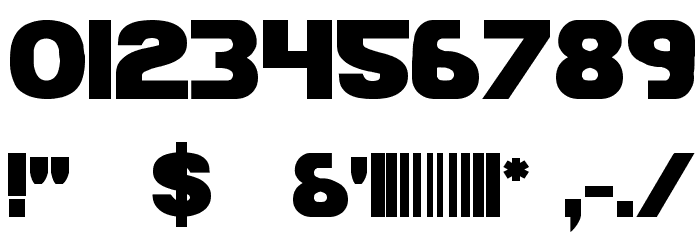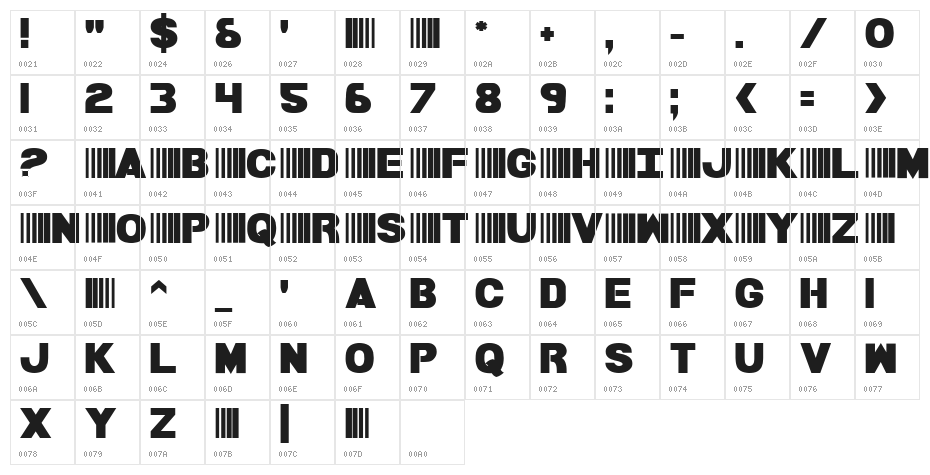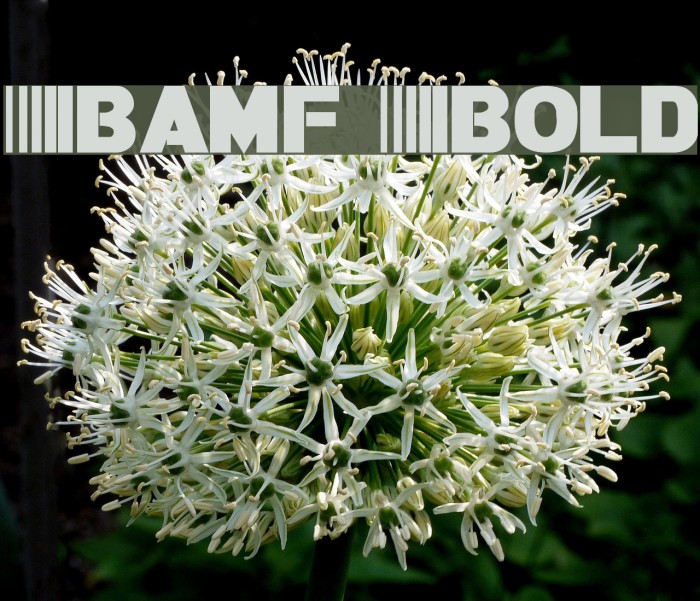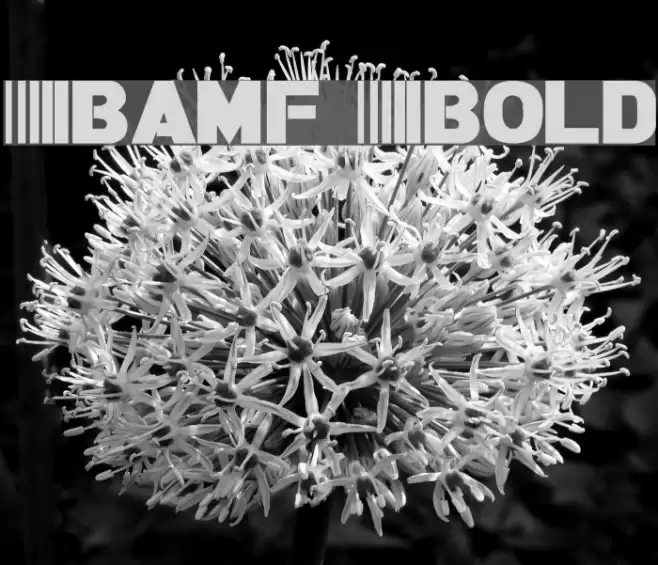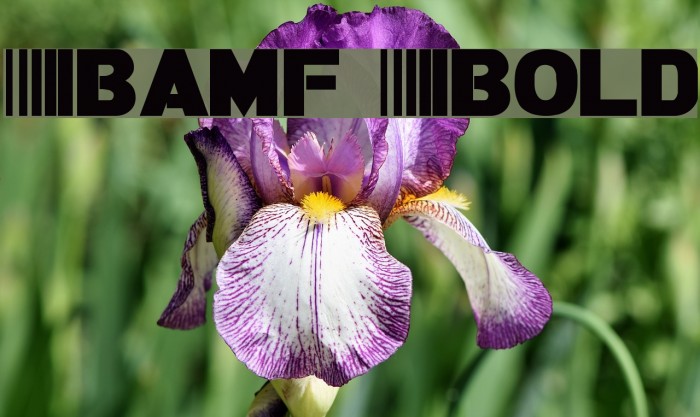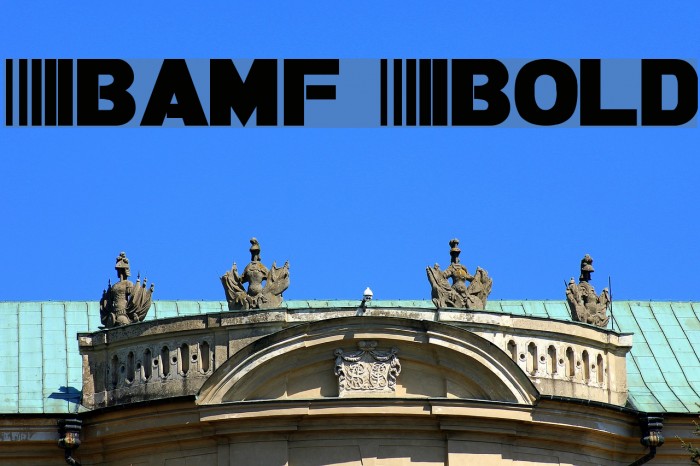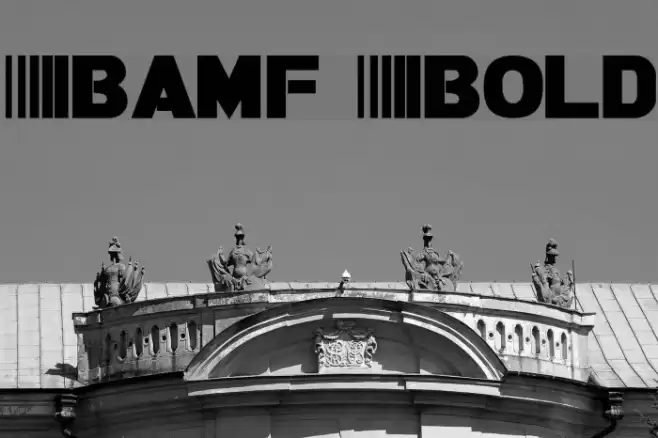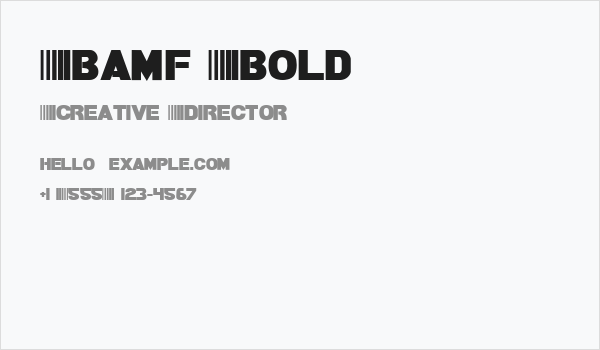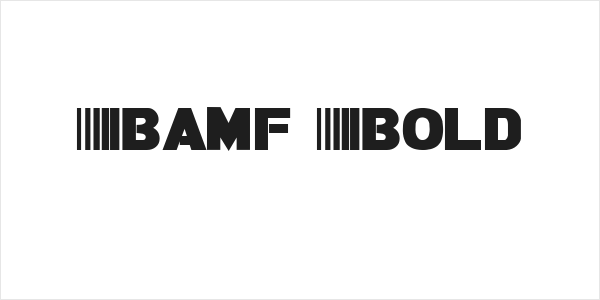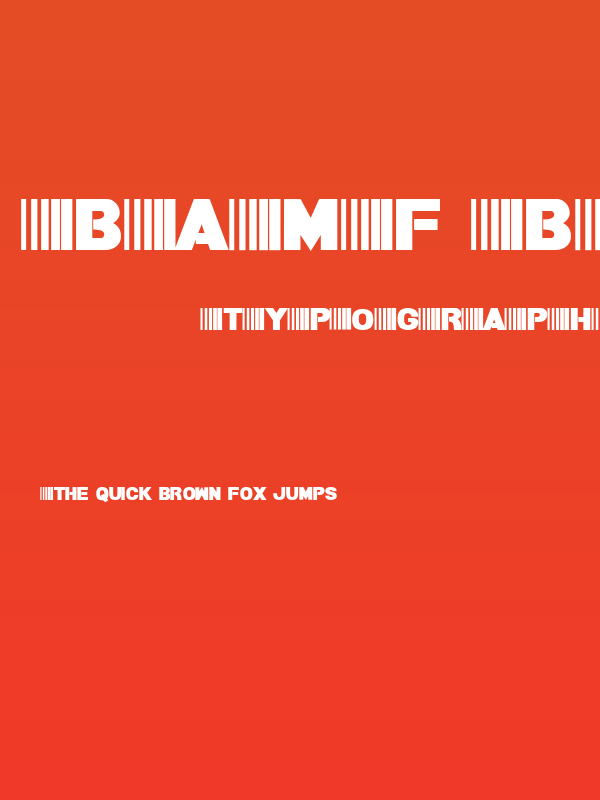
Bamf Bold Font
Bamf Bold Description
This bold and impactful font features strong, thick strokes that create a commanding presence. The uppercase letters are particularly striking, with a geometric and blocky design that emphasizes strength and stability. The numbers and special characters maintain this bold aesthetic, ensuring consistency across all elements. The font's design is modern and assertive, making it ideal for projects that require a strong visual impact. Its boldness and clarity make it suitable for headlines and logos, where readability and attention-grabbing qualities are essential.
| Proposed Projects | Ideal for branding, advertising, posters, and any project needing a bold statement. |